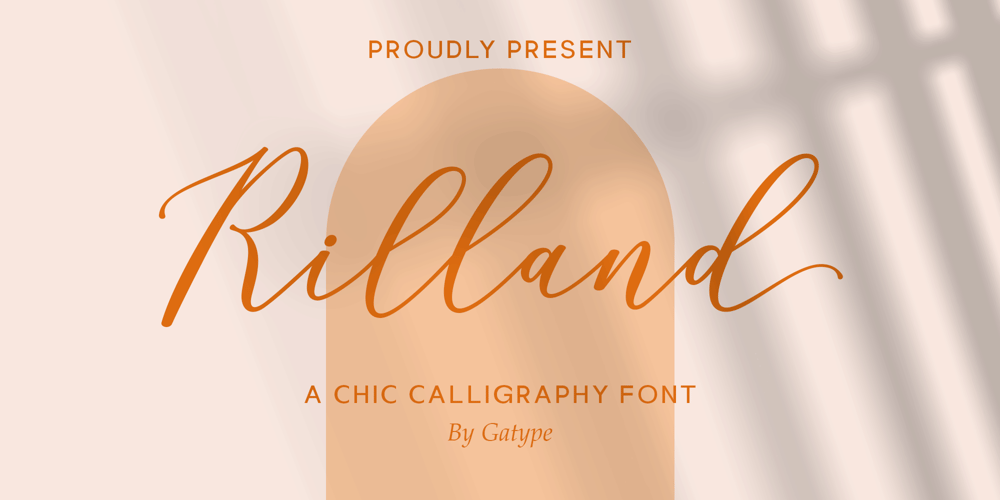
Rilland Script
Rilland Script font
Rilland Script Font Family was designed by khaidir and published by Gatype. Rilland Script contains 1 styles and family package options. Rilland is a Script font that combines classic elements with a modern touch. This font is designed to give an elegant and classy impression, suitable for various applications.Rilland offers an elegant and stylish character, with subtle details that give a premium impression, which is used for various design purposes, from wedding invitations, magazines, to logos and each letter has distinctive details, giving a unique and memorable appearance.Rilland is the perfect choice for designers looking for a font that can enhance the aesthetics of their projects with a touch of elegance.Regards Gatype